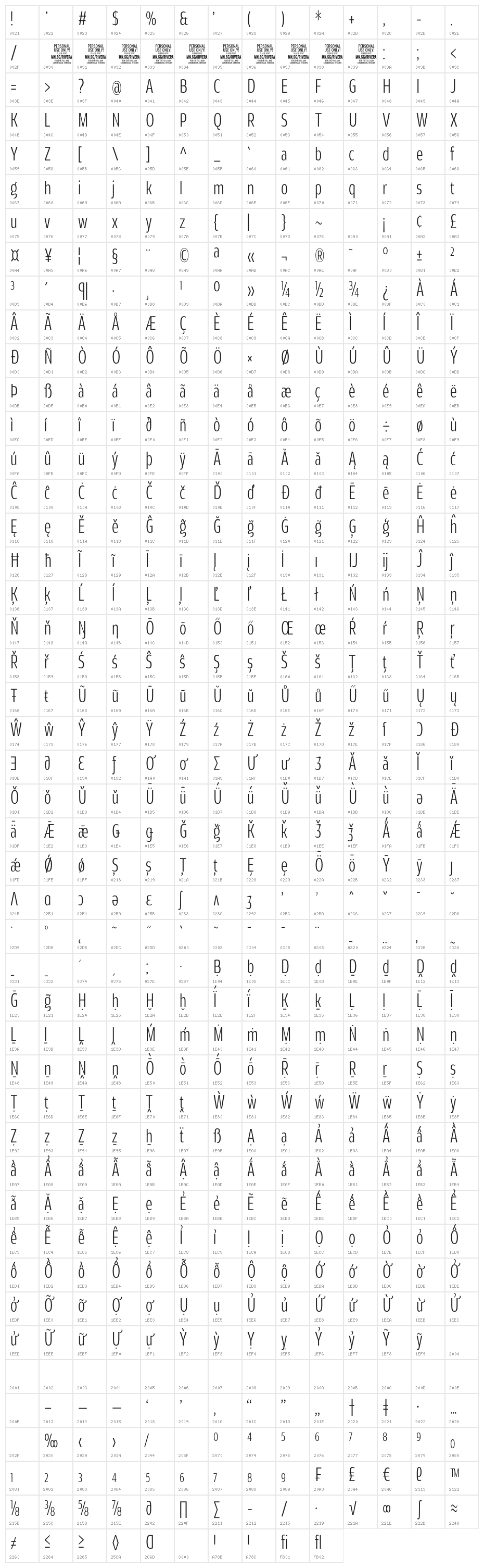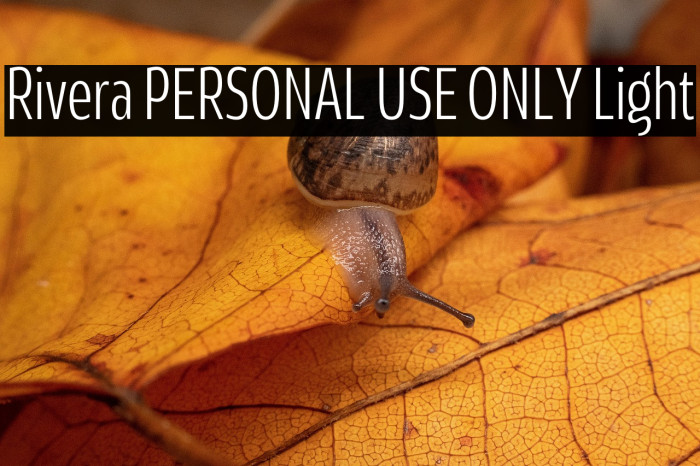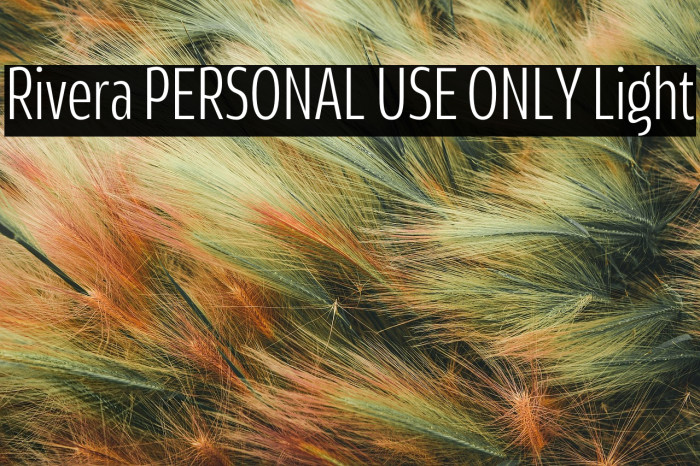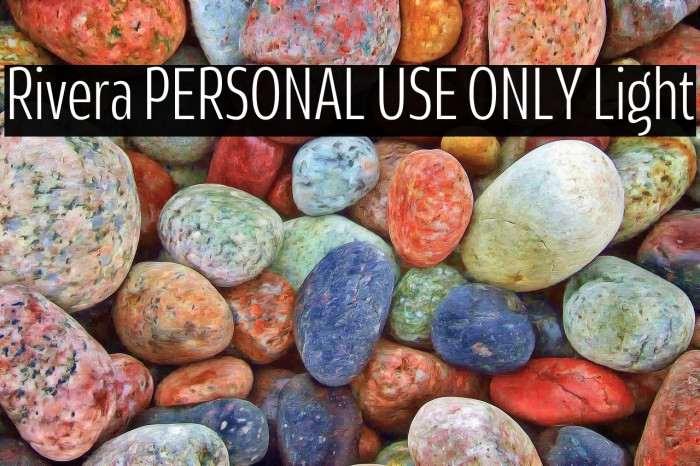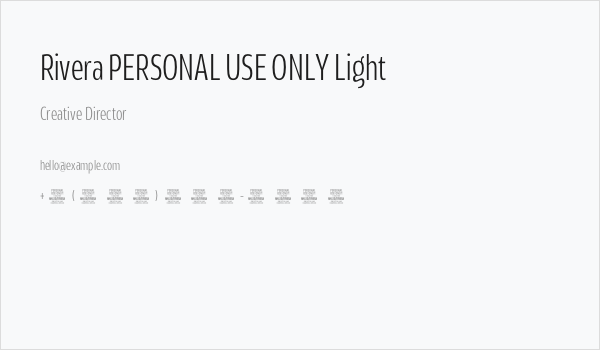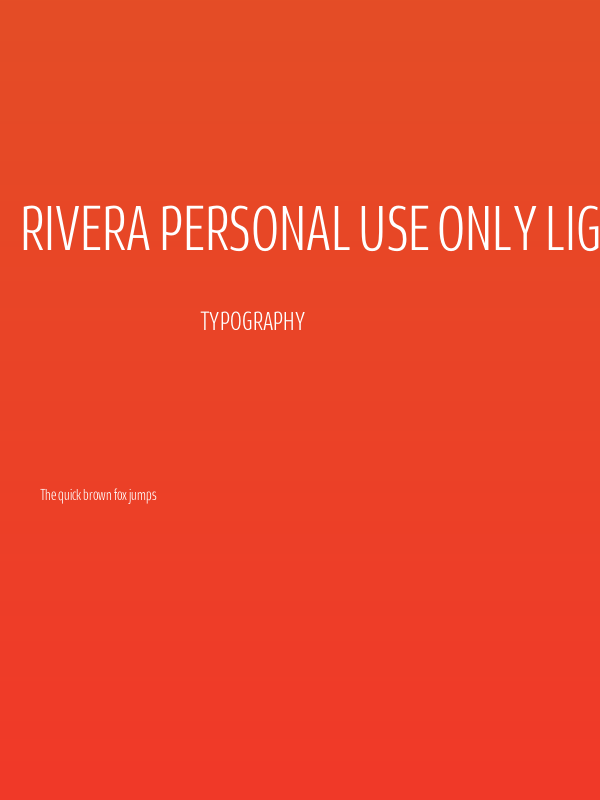
Rivera PERSONAL USE ONLY Light Font
Rivera PERSONAL USE ONLY Light Description
This font features a clean and modern sans-serif design with a light weight, offering a sleek and elegant appearance. The characters are tall and narrow, providing a condensed look that maintains readability. The uniform stroke width and minimal contrast contribute to its contemporary style. The uppercase and lowercase letters are well-proportioned, and the special characters are clearly defined, making it versatile for various uses. Its simplicity and clarity make it suitable for both digital and print media.